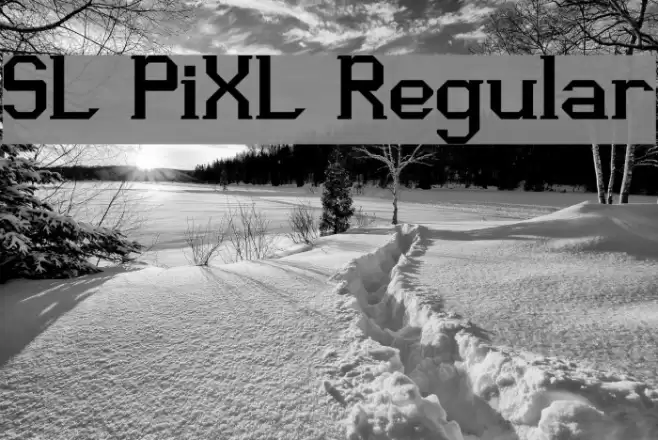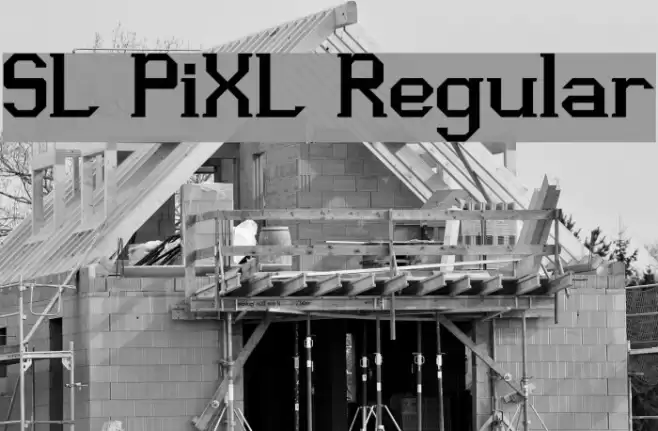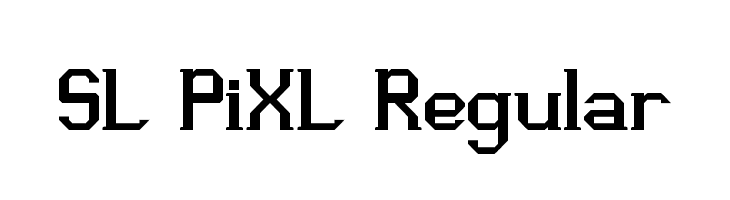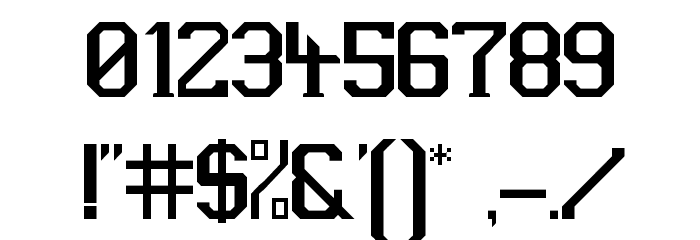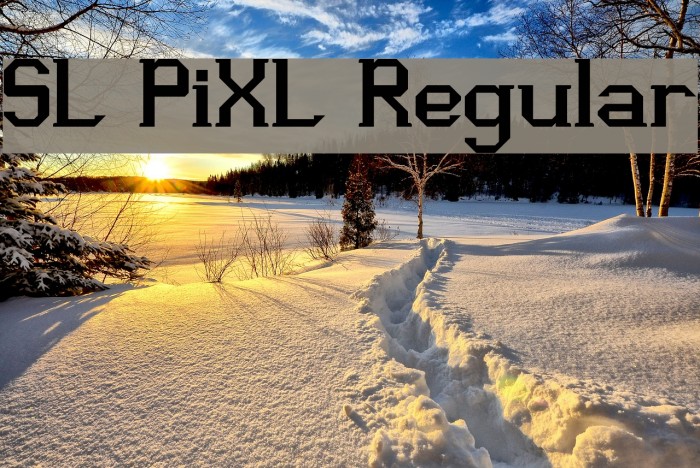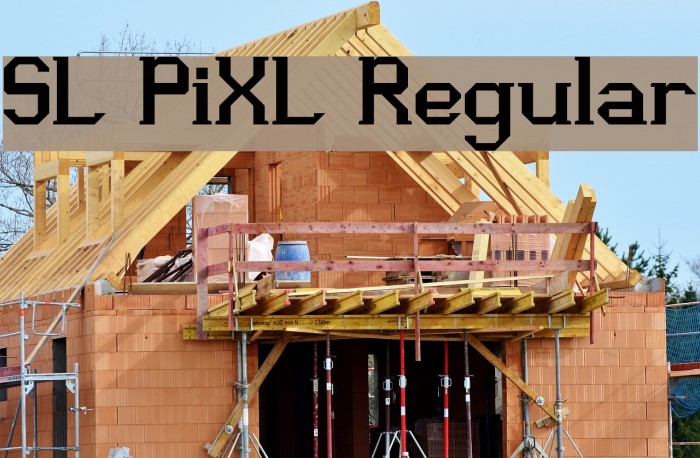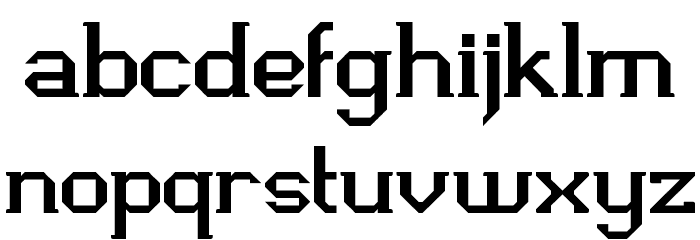
SL PiXL Regular Font
SL PiXL Regular Description
This font features a bold and geometric design, characterized by its angular and blocky letterforms. The uppercase and lowercase letters maintain a consistent structure, with sharp edges and a uniform stroke width that gives it a digital or pixelated appearance. The numerals and special characters follow the same design principles, ensuring a cohesive look across all characters. The font's style is reminiscent of early computer graphics, making it ideal for projects that require a retro or tech-inspired aesthetic.
A bold, geometric font with a pixelated, digital style from Futuristic fonts.
- Proposed Projects: Ideal for video game design, tech branding, digital art projects, and retro-themed posters.
- Overall Style: Modern, Retro